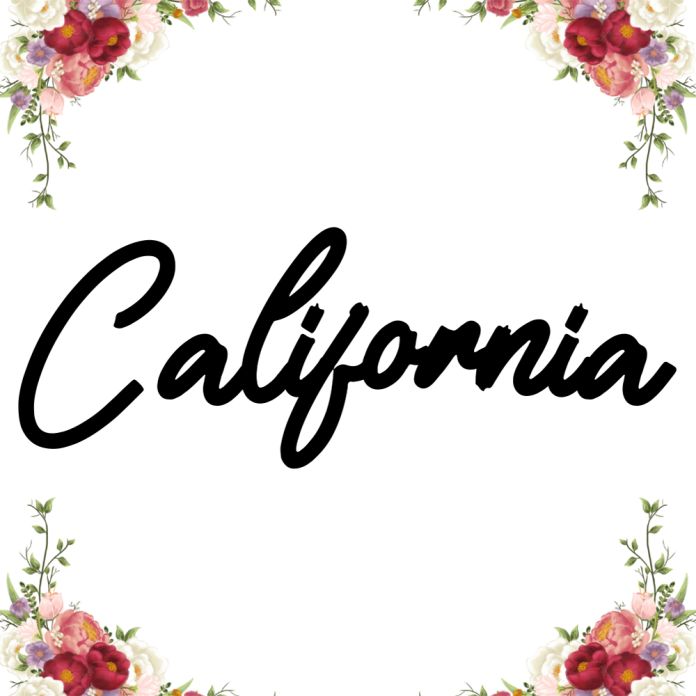
California is a beautiful, well-balanced, and graceful script font. It is defined by smooth curves and is perfect for fashion branding or editorial designs.